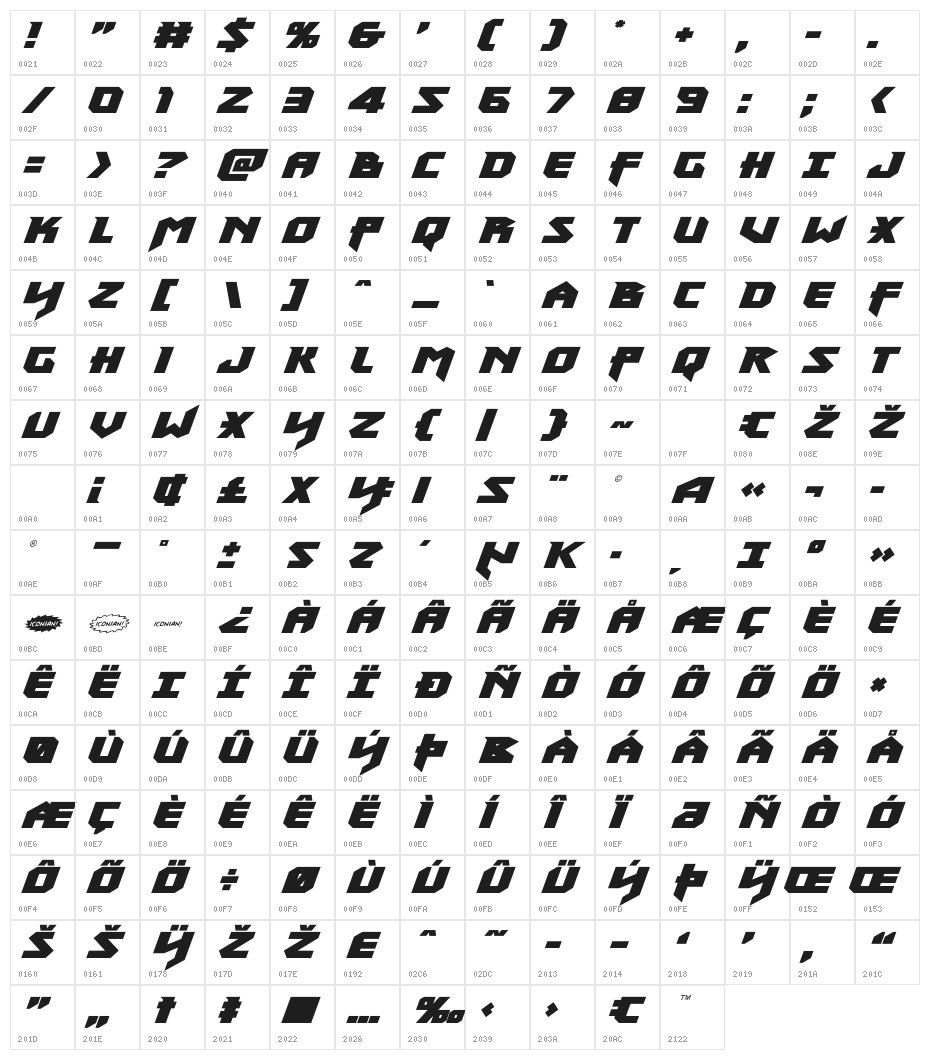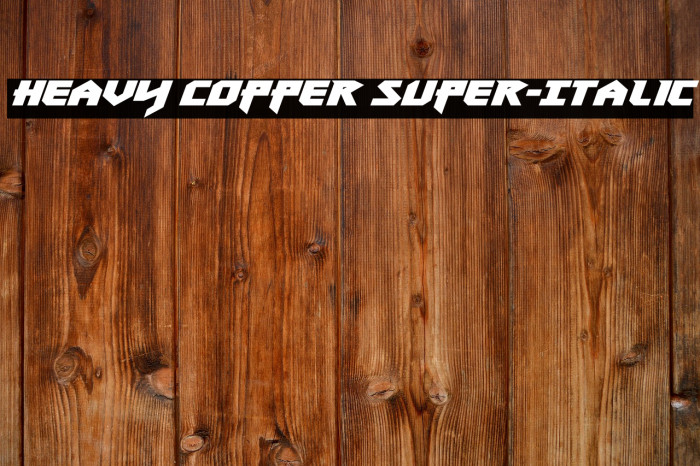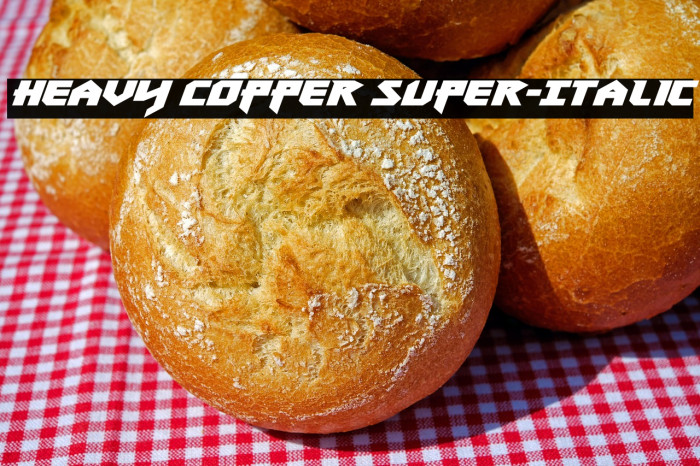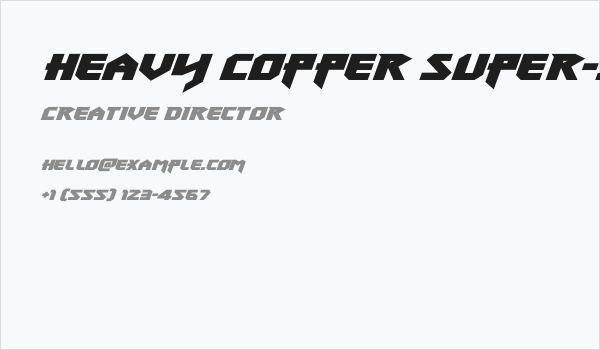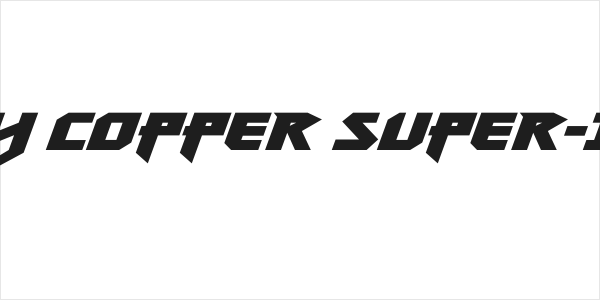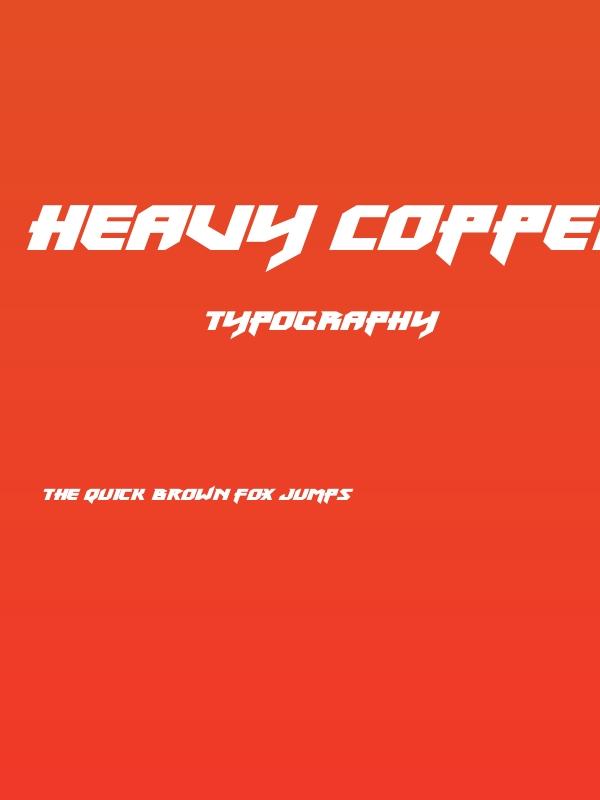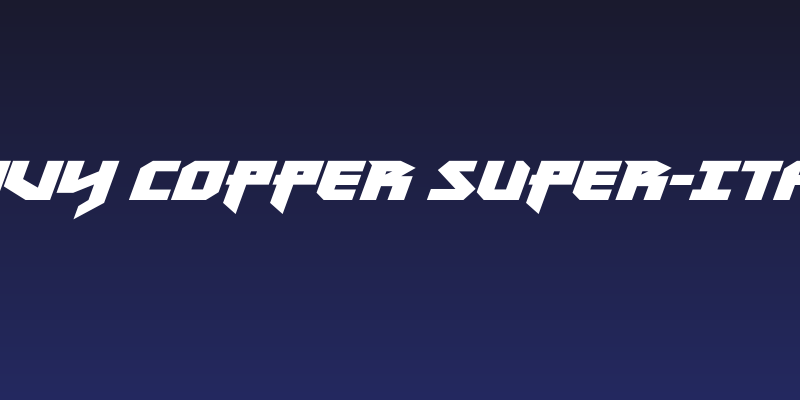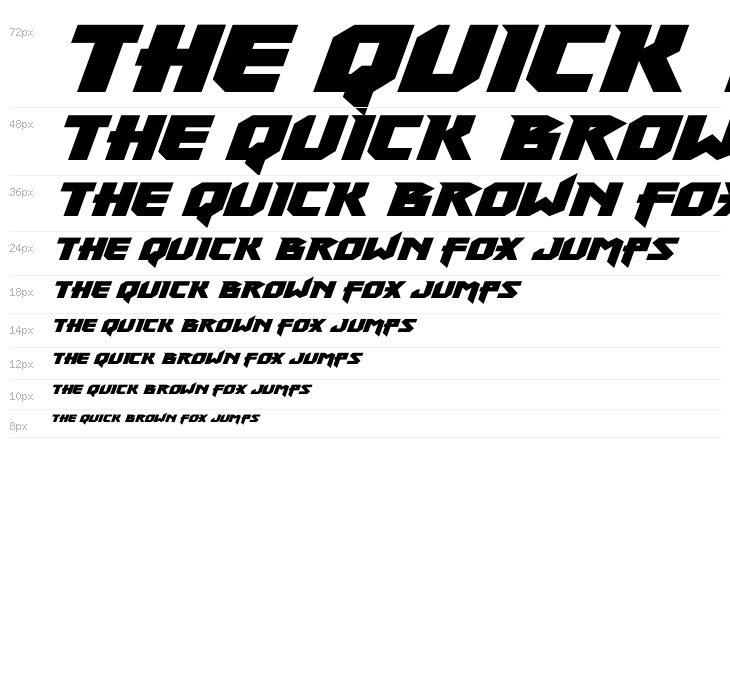
Heavy Copper Super-Italic Font
Heavy Copper Super-Italic Description
This font features a bold and dynamic design with sharp, angular edges and a strong italic slant, giving it a sense of movement and energy. The uppercase and lowercase letters maintain a consistent style, with thick strokes and pointed terminals that create a striking visual impact. The numbers and special characters follow the same bold and angular aesthetic, ensuring uniformity across all characters. This font's aggressive and modern look makes it ideal for projects that require a strong visual presence.
| Proposed Projects | Ideal for sports branding, action movie posters, video game titles, and dynamic logo designs. |